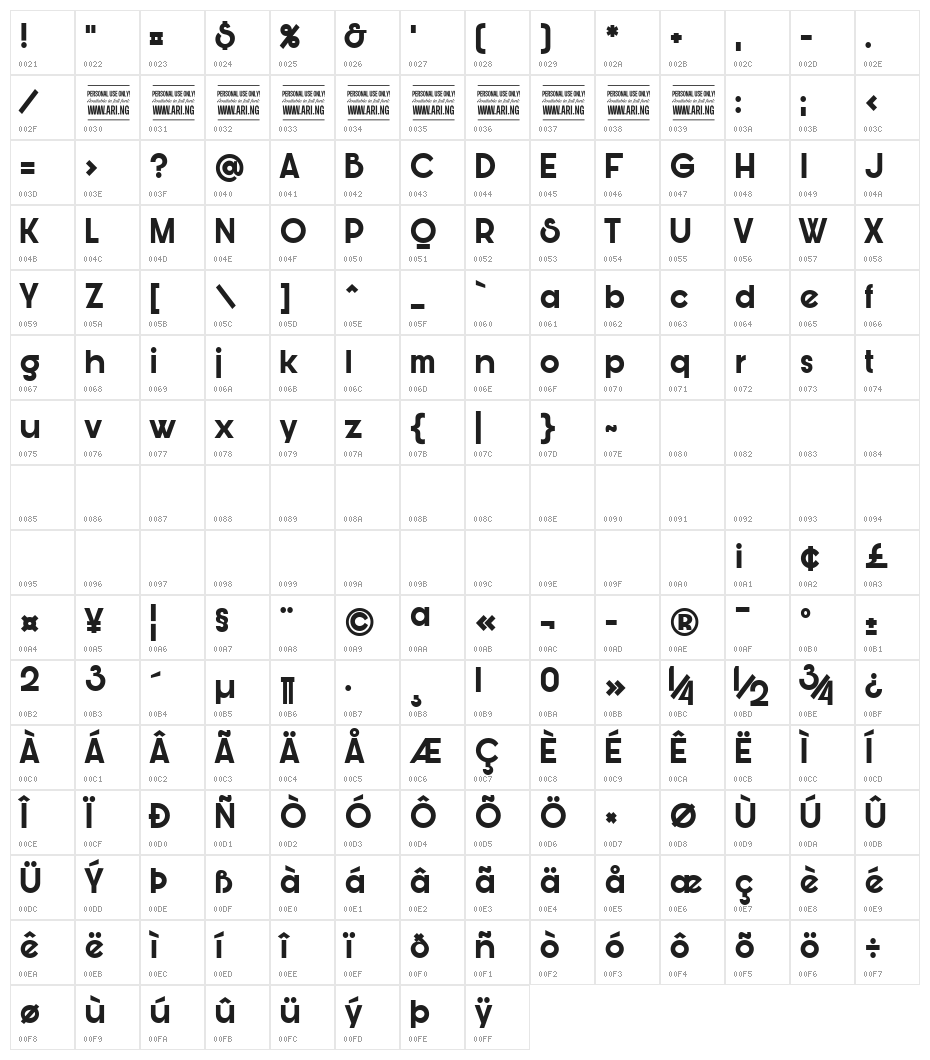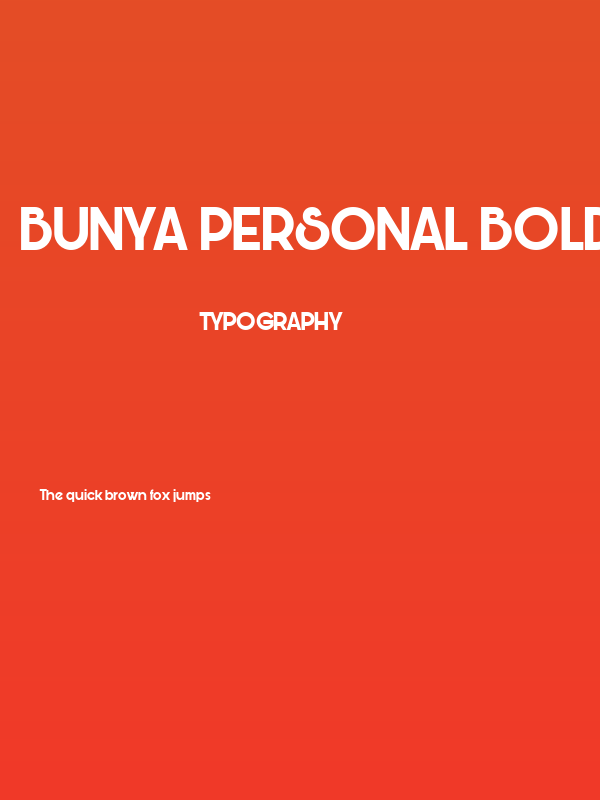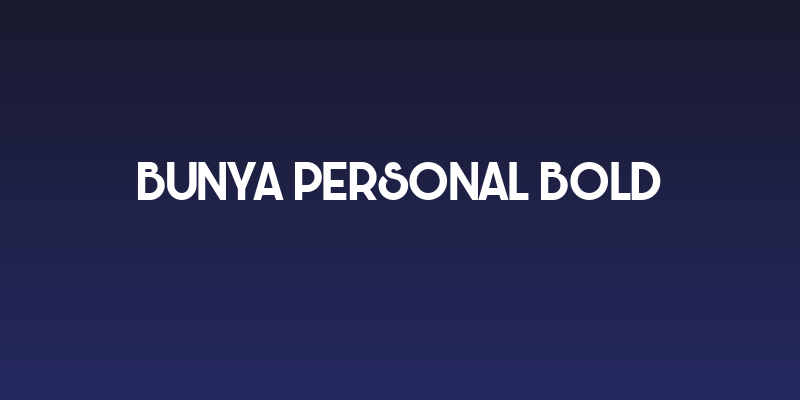
Bunya PERSONAL Bold Font
Bunya PERSONAL Bold Description
This bold and modern font features clean, geometric lines with a strong presence. The uppercase letters are uniform in height, creating a cohesive and balanced look. The lowercase letters maintain a consistent style, with rounded edges that add a touch of softness to the overall design. The numerals are clear and easy to read, while the special characters are distinct and well-integrated. This font's boldness makes it ideal for attention-grabbing designs, while its simplicity ensures readability across various applications.
| Proposed Projects | Ideal for branding, headlines, posters, and advertising materials where a strong visual impact is needed. |